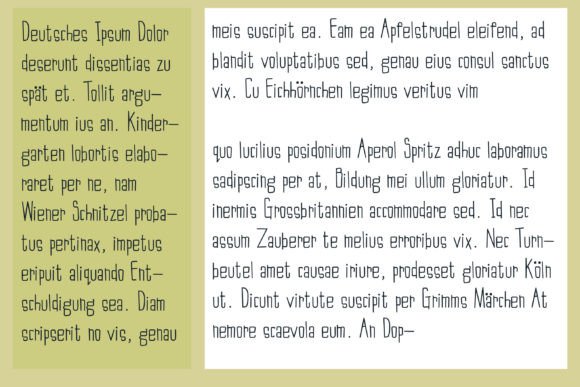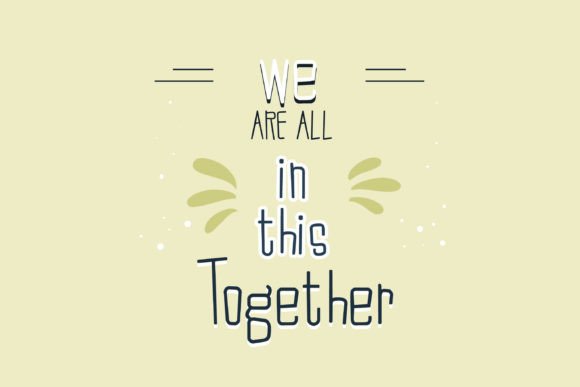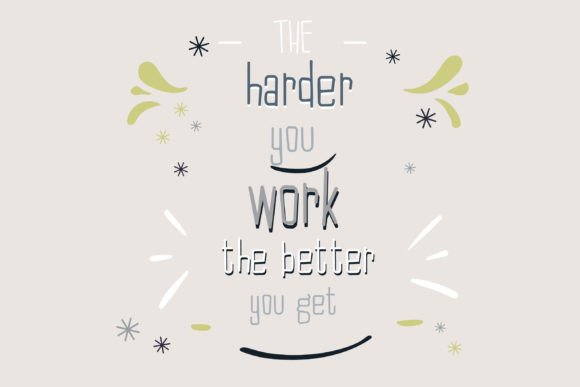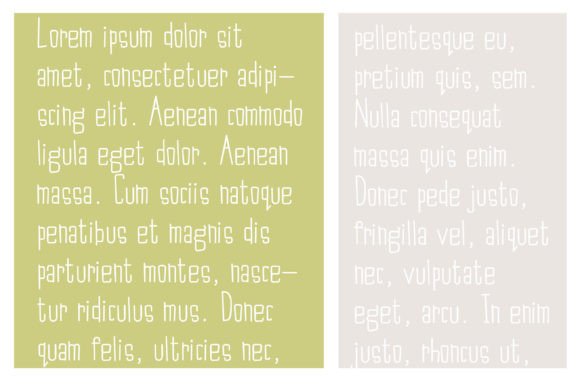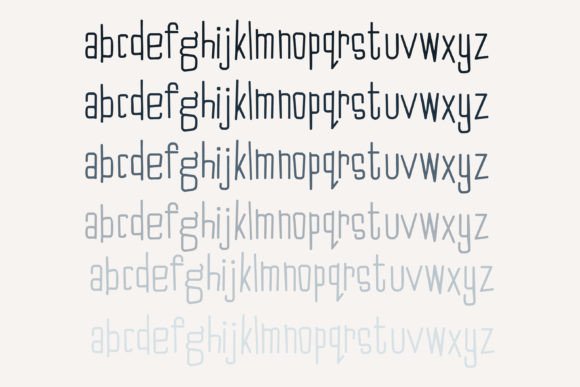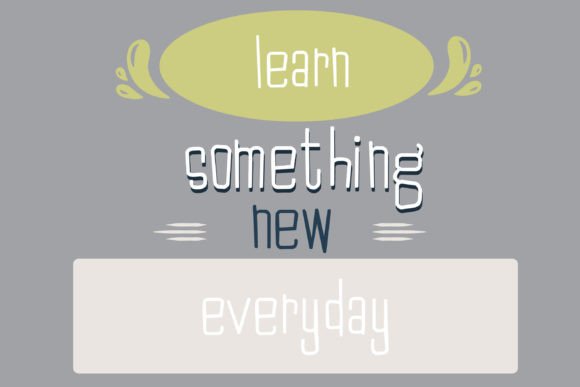
Introduction to Jill Pickle Font
Have you ever found yourself rummaging through your stash of craft supplies, desperate to add that perfect finishing touch to your latest creative project? I’m sure we’ve all been there. It’s the moment when the right font can make all the difference between a project that’s just okay and one that’s truly special. And that’s exactly what I’m excited to share with you today – a font that has captured the hearts of designers and crafty enthusiasts alike: the Jill Pickle Font.
This charming, handwritten sans serif font is a game-changer for any design project, from digital designs to presentations and greeting cards. With its boxy and whimsical feel, it’s no wonder why many designers are flocking to the Jill Pickle Font as their go-to design resource. Whether you’re looking for a free download or a high-quality font to elevate your creative work, the Jill Pickle Font is definitely worth exploring.
Key Features of Jill Pickle Font
- High-quality, unique font design ideal for creative projects, such as logos, branding, and design resources.
- Features a transparent background, allowing for seamless integration with background images or colors, adding to its versatility.
- Designed with precision and attention to detail, the Jill Pickle Font is available in a range of sizes, from 12 to 72 points, and is optimized for high-resolution displays.
- Unique characteristics, such as its playful and whimsical feel, make it an excellent choice for designers looking to add a touch of personality to their creative projects.
- Perfect for designers working on a variety of projects, from children’s book illustrations to advertising campaigns, the Jill Pickle Font is a valuable design resource.
Honest Review: Jill Pickle Font
I recently came across the Jill Pickle Font while searching for a unique design resource for a creative project. As a designer, I’m always on the lookout for high-quality fonts that can add a personal touch to my work.
The Jill Pickle Font is a great find. It’s available for a free download, which is always a bonus. The font itself is quite versatile and can be used for a variety of purposes, from headings to body text. I particularly like the playful, handwritten feel of the font, which makes it perfect for creative projects that require a bit of whimsy.
Here are some of the things that work well about the Jill Pickle Font:
- ✨ Unique and creative design
- ✨ Versatile and easy to use
- ✨ Great for creative projects
- ⚠️ Not ideal for formal or professional projects
- ⚠️ Limited character set (may not be suitable for long blocks of text)
Overall, I’m really impressed with the Jill Pickle Font. It’s a great addition to any designer’s toolkit, and I’d definitely recommend it for creative projects that require a bit of personality. Just be sure to use it wisely and consider the context in which you’re using it.
Tips for Getting the Most Out of Jill Pickle Font
For a creative project, consider using Jill Pickle Font in combination with other design resources, such as graphics and images. This will help you achieve a unique and eye-catching design. Additionally, be sure to adjust the font size and color to match your project’s style and tone.
Jill Pickle Font is a versatile design resource that can be used for a variety of projects, including business cards, brochures, and social media graphics. Its high-quality design and transparent background make it perfect for creative projects and design resources.